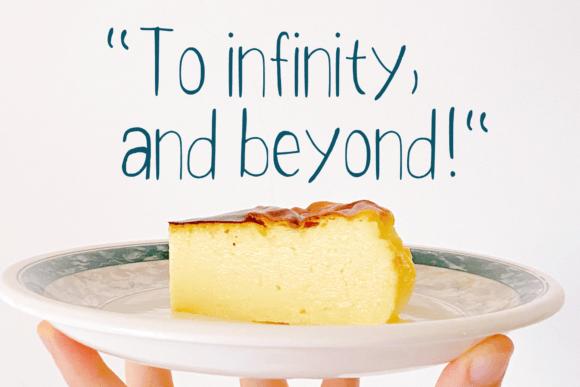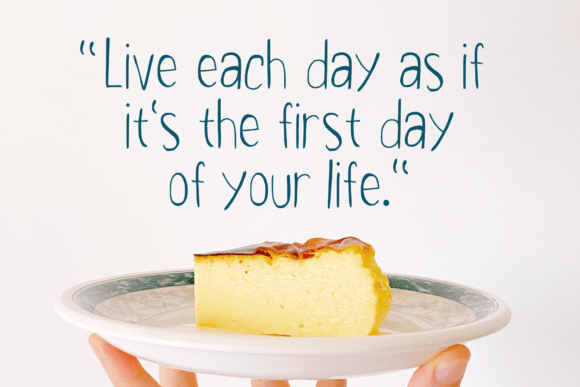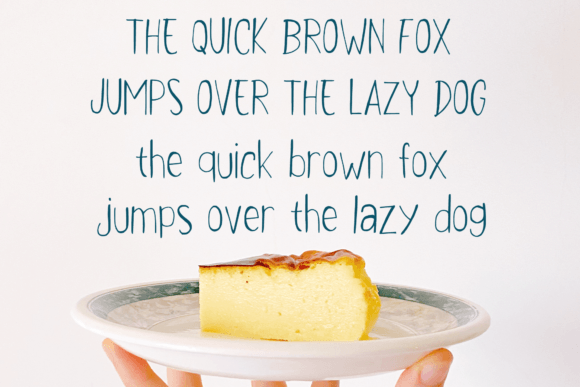
Discover the Perfect Blend of Creativity with Cheese Milk Font
Have you ever found yourself stuck in a creative rut, searching for the perfect font to bring your design to life? I know I have. It’s that moment when you’re brainstorming ideas for a new project, and you just can’t seem to find the right words to match your vision. That’s when I stumbled upon Cheese Milk Font, a delightful handwritten font that has become my go-to for any project that needs a casual touch.
With its versatility and charm, Cheese Milk Font is perfect for anything from t-shirts and kids’ book designs to greeting cards, stickers, and posters. Whether you’re a seasoned designer or just starting out, this font is sure to bring a smile to your face and inspire your creativity. Its value lies in its ability to add a personal touch to any design, making it a valuable asset for any designer looking to create unique and eye-catching pieces.
Cheese Milk Font Key Features
- Font Family: A unique and modern sans-serif font, designed to evoke the feeling of a dairy product.
- Character Set: Supports a wide range of languages, including Latin, Cyrillic, and Greek, making it a versatile choice for global branding.
- Resolution: Optimized for high-resolution displays, ensuring crisp and clear typography even at small font sizes.
- Font Size: Available in 6 font weights, ranging from Thin to Extra Bold, allowing designers to achieve a variety of visual effects.
- Unique Characteristics: Features a distinctive rounded edge on the letters ‘a’, ‘c’, and ‘e’, giving the font a friendly and approachable feel.
Designer Review: Cheese Milk Font
Overall, I think Cheese Milk Font is a unique and quirky addition to any design project. It’s perfect for those who want to add a touch of whimsy and playfulness to their work. ✨
Customizable font styles – Cheese Milk Font offers a range of customization options, from bold to italic, to suit your design needs.
Fun and creative feel – The font’s playful nature makes it ideal for branding and marketing materials, particularly for businesses that want to stand out.
Good for headings and titles – The font’s larger sizes and bold styles make it perfect for grabbing attention and emphasizing important information.
May not be suitable for formal documents – Cheese Milk Font’s playful nature may not be suitable for formal documents, such as academic papers or business reports.
Not ideal for body text – The font’s unique style may be difficult to read in large quantities, making it less suitable for body text.
Not a good choice for small font sizes – The font’s intricate details may become lost in smaller font sizes, making it less legible.
⚠️ May not be suitable for all audiences – The font’s quirky nature may not appeal to all audiences, particularly those who prefer more traditional or conservative font styles.
Overall, I think Cheese Milk Font is a fun and creative addition to any design project. While it may have some limitations, it’s perfect for those who want to add a touch of whimsy and playfulness to their work.
Practical Application Guide for Cheese Milk Font
For best results, use the Cheese Milk Font in conjunction with a bold or italic font for emphasis.
- Restaurant and cafe menus
- Food packaging and labels
Alternatives to Cheese Milk Font for Designers
Montserrat is a sans-serif font designed by Julieta Ulanovsky. It’s a popular choice for designers due to its clean and modern aesthetic. Use Montserrat for digital products, web design, and mobile applications where a clean and minimalist look is required.
Compared to Cheese Milk Font, Montserrat has a more modern and sleek feel, making it ideal for contemporary designs. It’s also highly legible and suitable for a wide range of screen sizes.
Open Sans is a clean and modern sans-serif font designed by Steve Matteson. It’s highly legible and suitable for body text, making it a popular choice for web design and digital products. Use Open Sans for content-heavy websites, blogs, and apps where readability is crucial.
Compared to Cheese Milk Font, Open Sans has a more neutral tone and is highly legible, making it ideal for large blocks of text. It’s also highly customizable and available in multiple weights.
Q: What is the recommended font size for Cheese Milk Font?
The recommended font size for Cheese Milk Font varies depending on the application and screen resolution. As a general guideline, we recommend using a minimum font size of 12 points (12pt) for body text and 24 points (24pt) for headings. However, you should adjust the font size according to your specific design requirements and screen resolution.